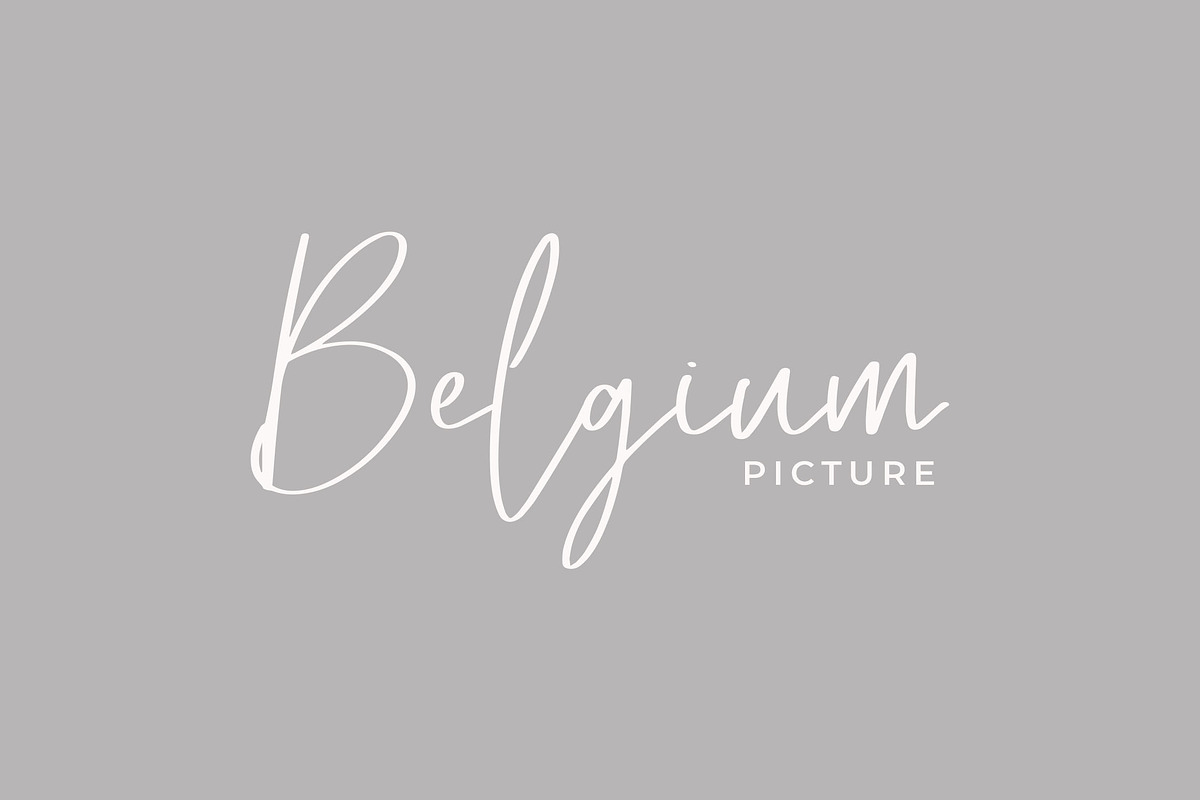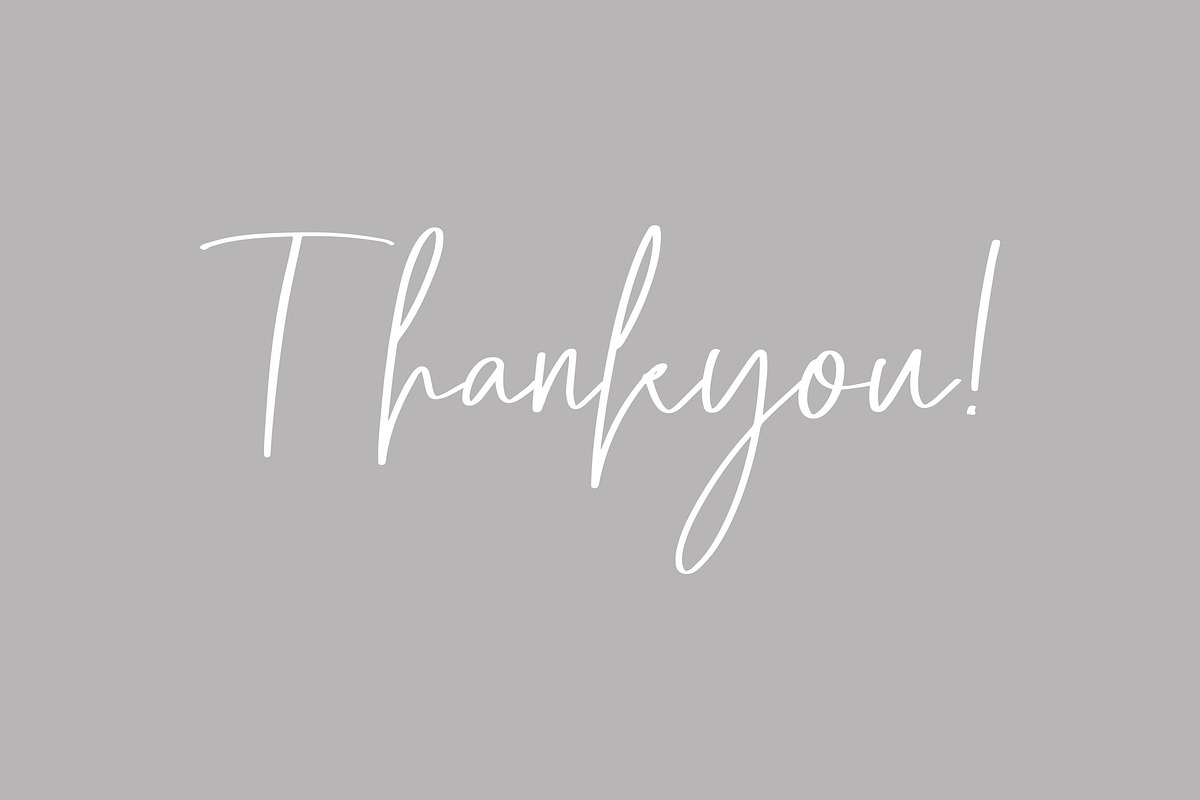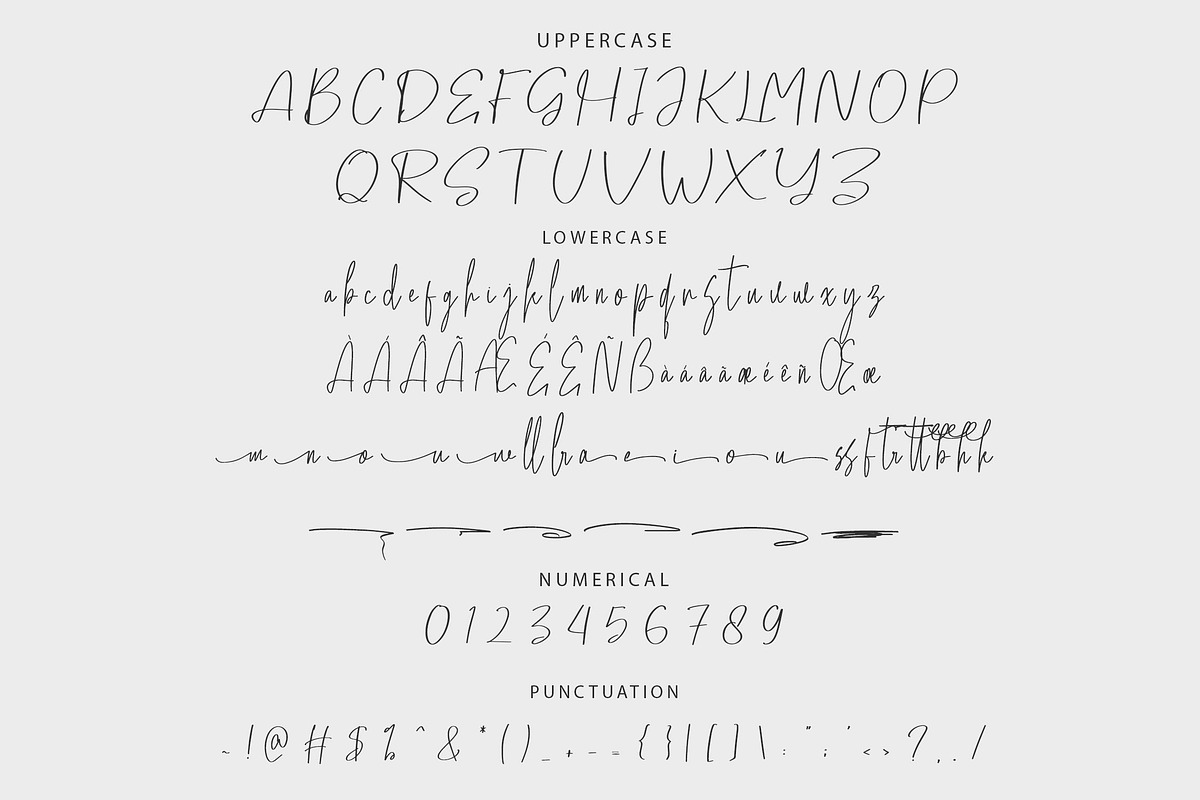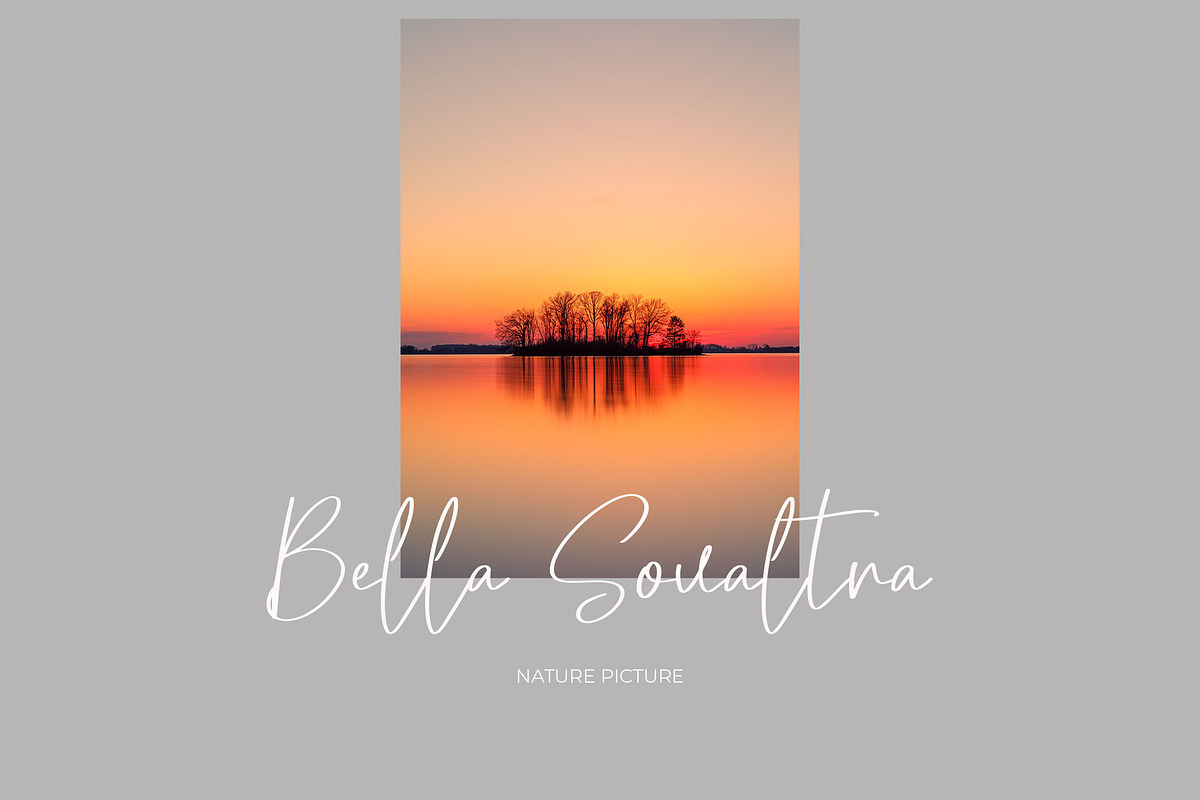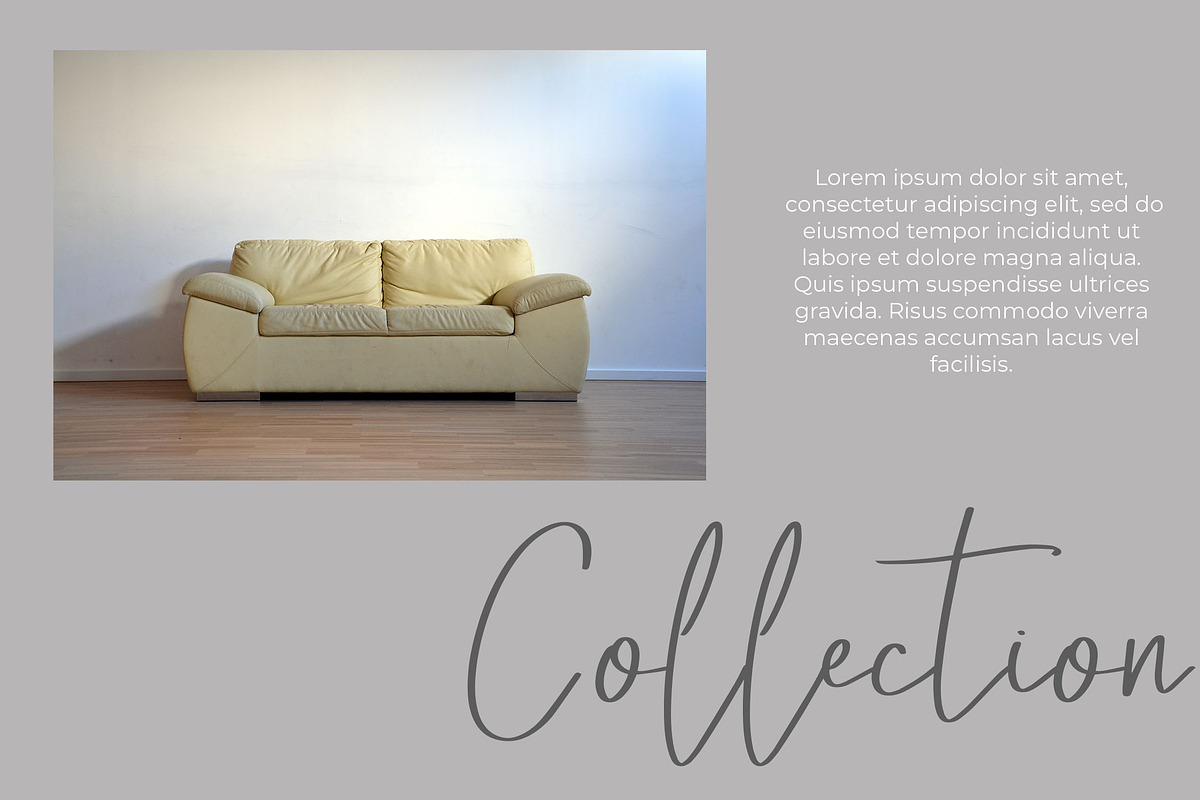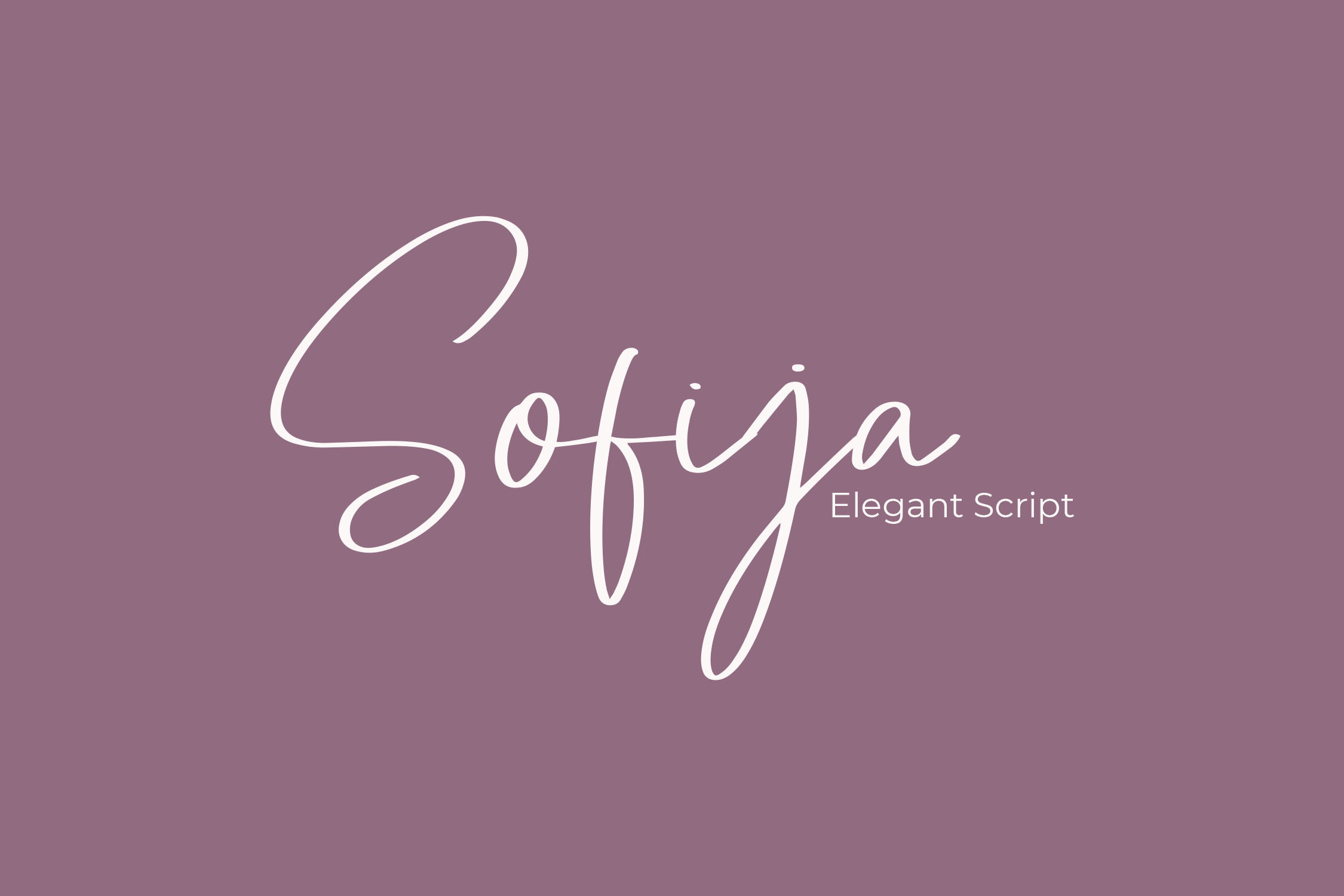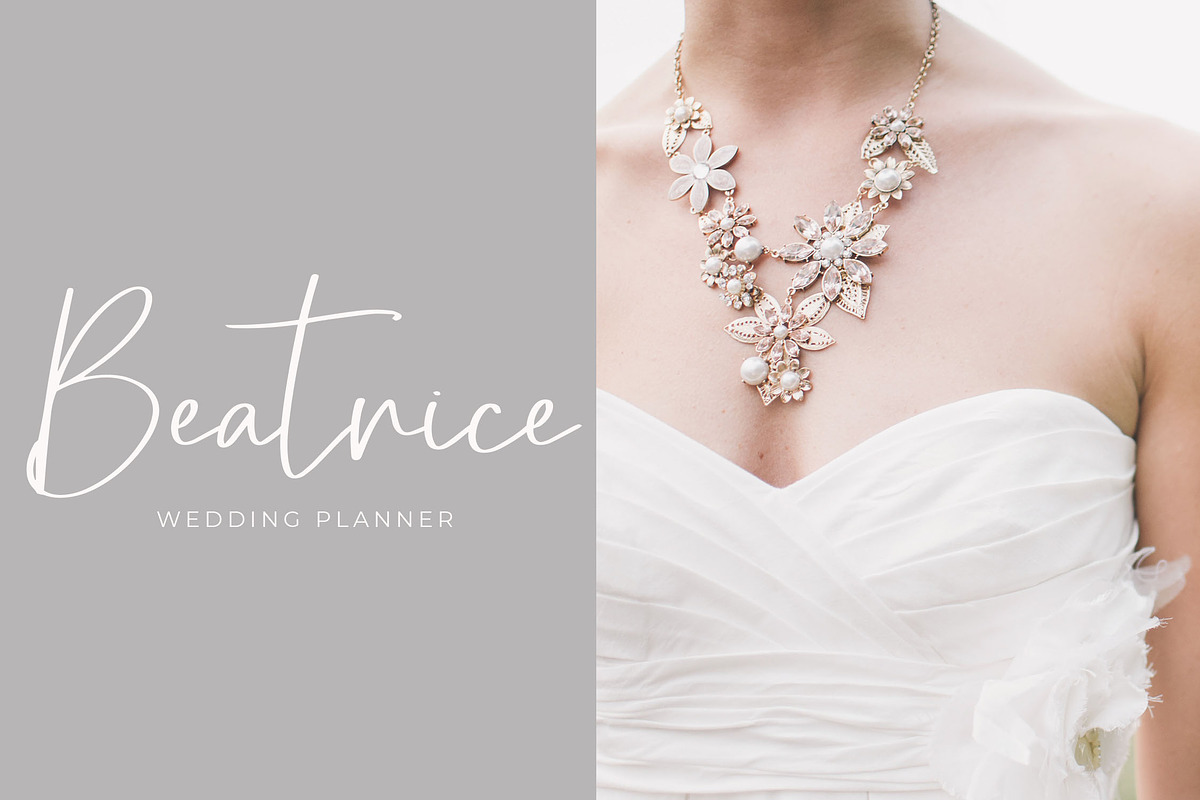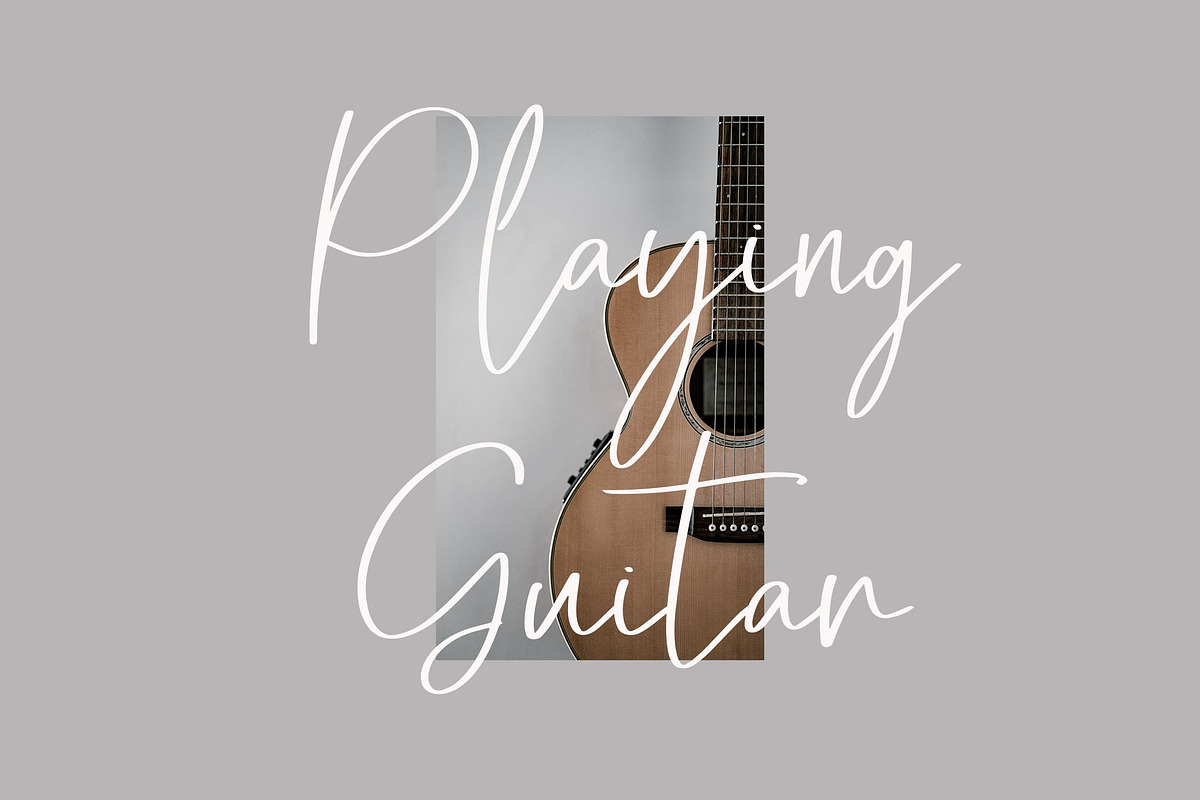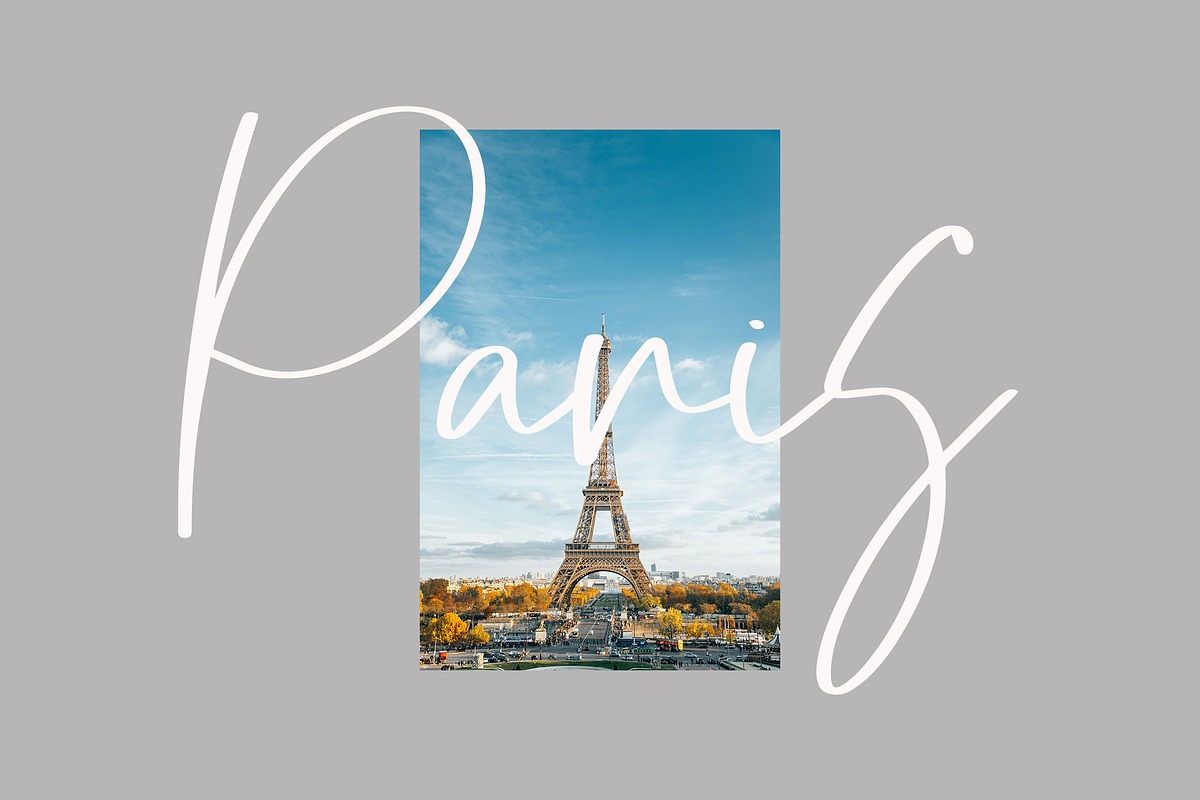
Sofija Elegant Script Font
Sofija - Elegant Script Font
Sofija is a stunning script font that combines elegance with unique, hand-crafted character designs. Its sophisticated style adds a touch of class and creativity to any project, making it perfect for enhancing product visuals and creating eye-catching designs.
- Beautiful ligatures for smooth letter connections
- Stylistic alternates for design flexibility
- Elegant swashes to elevate your typography
- Multilingual support for global use